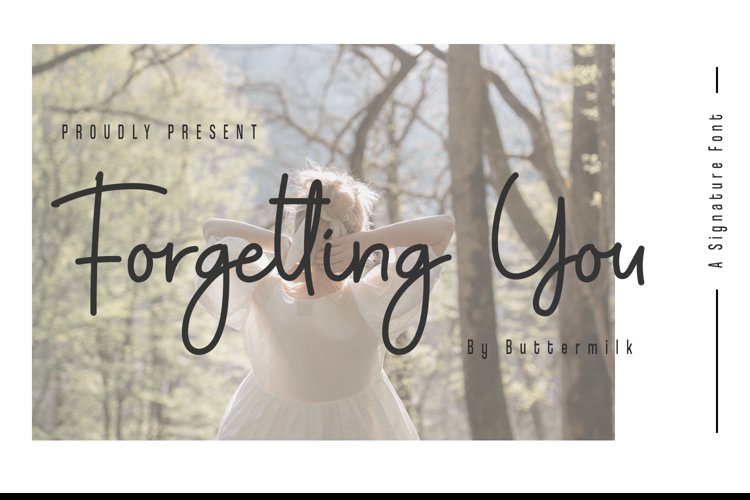
proudly presents a signature font with a feminine impression of forgetting you, it is very suitable to be applied with various types of designs to give an elegant impression